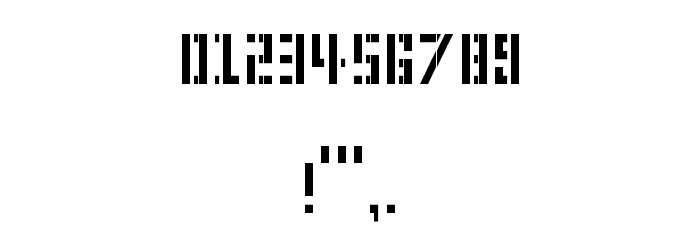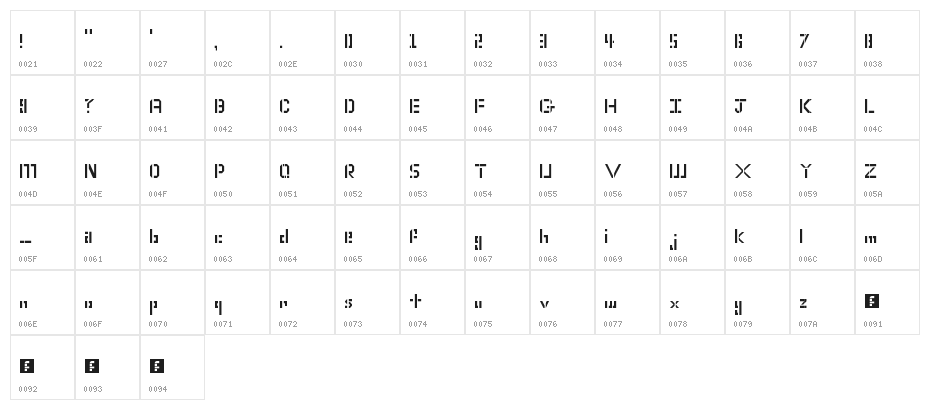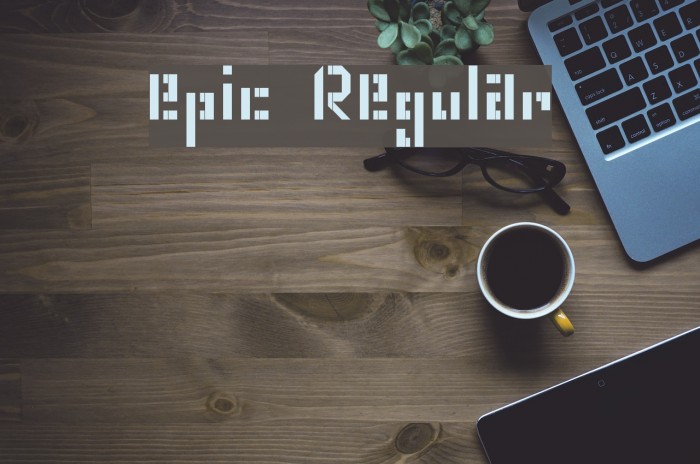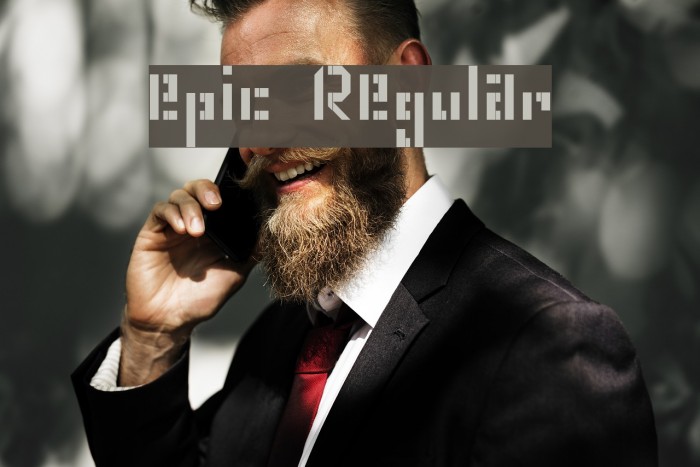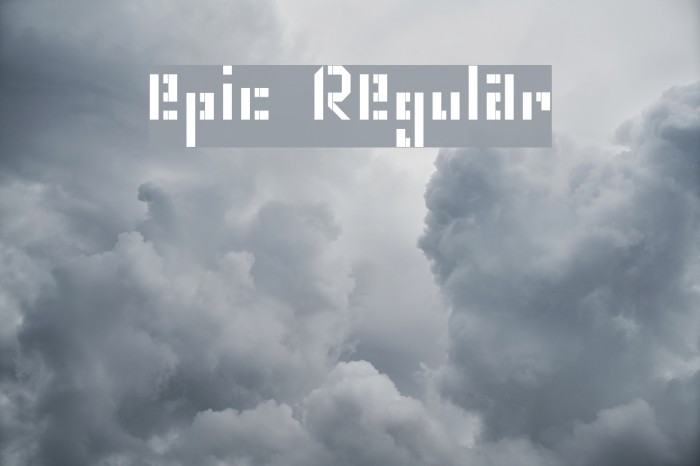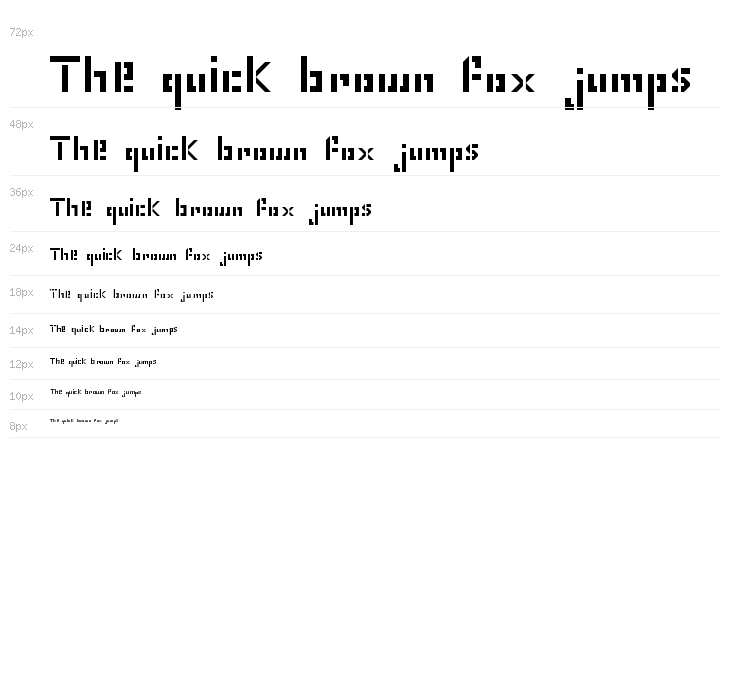
epic Regular Font
epic Regular Description
This font features a unique, geometric design with a stencil-like appearance. Each character is composed of bold, angular shapes that create a futuristic and industrial feel. The uppercase letters are particularly striking, with a blocky and segmented style that suggests a sense of movement and modernity. The lowercase letters maintain this aesthetic, though they are slightly more compact. Numbers and special characters follow the same design principles, ensuring consistency throughout. This font's distinct look makes it ideal for projects that require a bold and eye-catching typeface.
Patrick Gregory - www.smartkeys.org
| Proposed Projects | Ideal for branding, posters, album covers, and any project needing a modern, edgy look. |